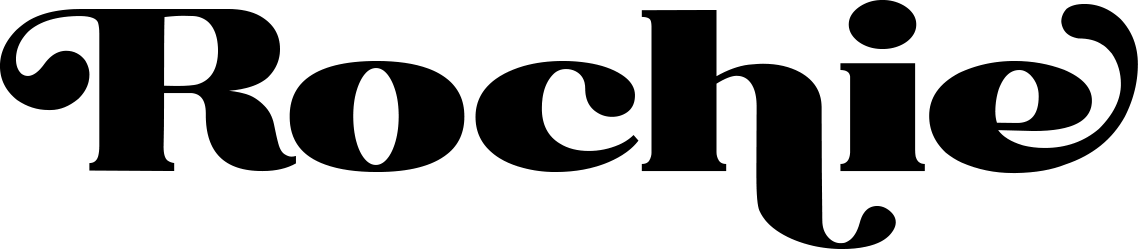
Rochie Font
Do you struggle to choose the ideal font for your design and spend hours looking for it? Meet Rochie, a fancy, retro font that will instantly change your design! It’s sleek, classic, and circular. Its strong appearance makes it suitable for many applications. It can be used on posters, cards, websites, branding, and logos.